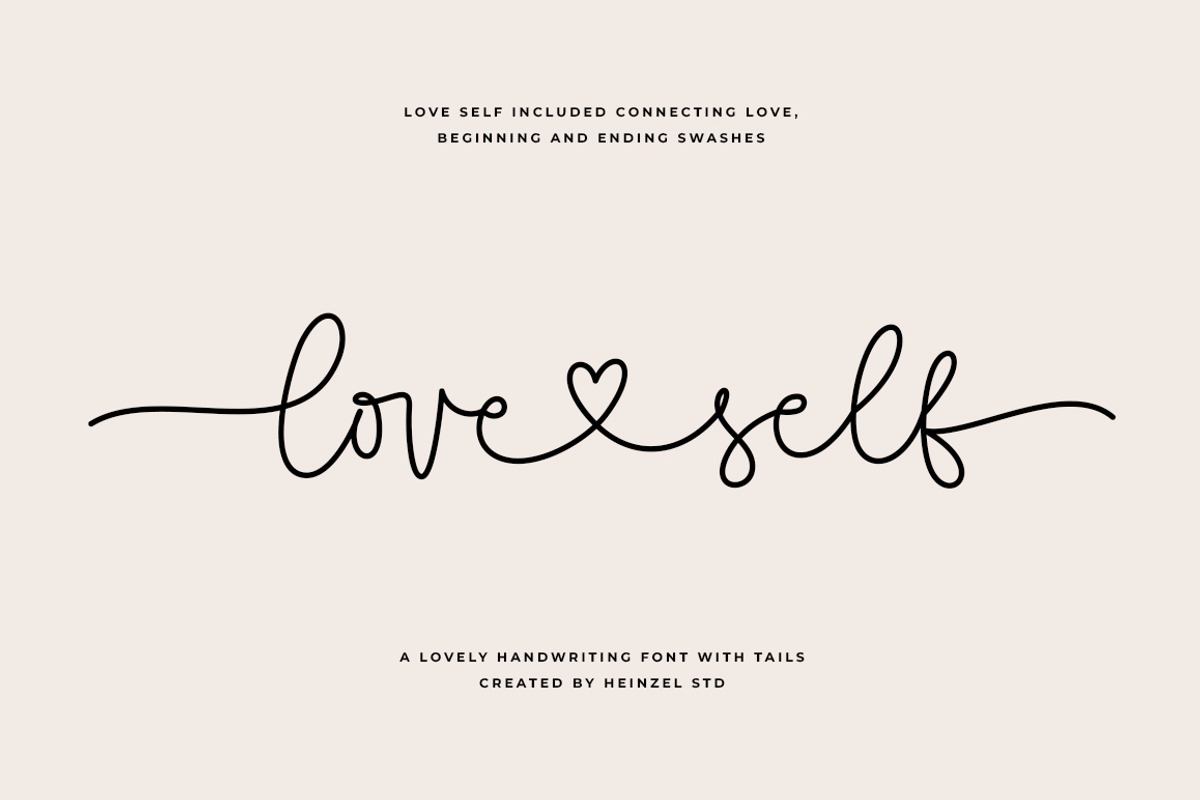
Please note, to use this font for commercial purposes, you must purchase the full version. Love Self is a beautifully crafted script font with elegant, flowing letterforms that evoke warmth and charm. Perfect for wedding invitations, branding, logos, and personal projects, this font adds a romantic and sophisticated touch to your designs. Whether you're designing for a luxurious brand, a heartfelt event, or a personalized gift, Love Self brings grace and elegance to your work. Test it out and enjoy free download access for personal use. Experience the graceful beauty of Love Self | Lovely Script Font Free Download before purchasing the commercial license. Add a lovely, handwritten touch to your designs with Love Self.